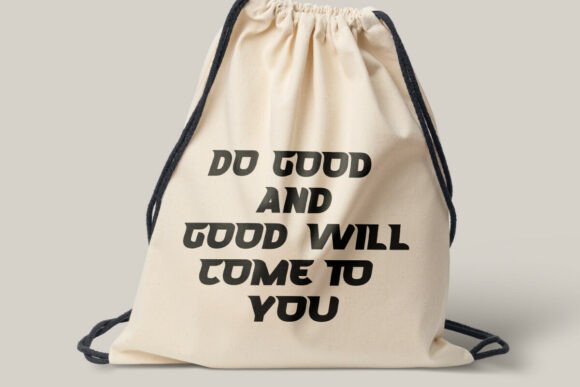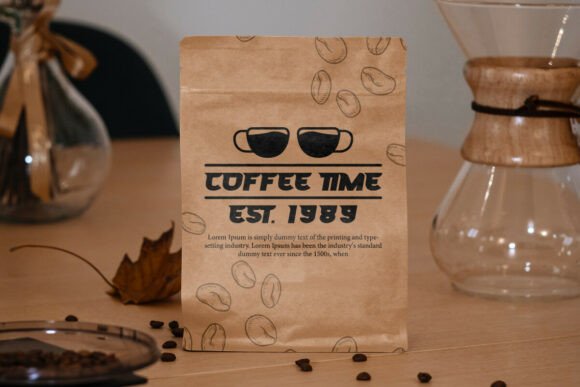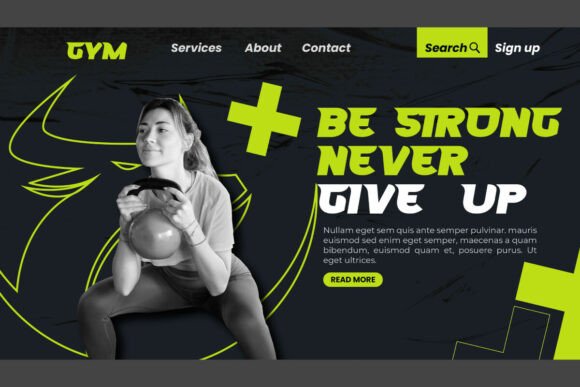
Introduction to Games Space Font
Games Space Font is a playful display font with a gaming theme.
It will be good for any designs, such as advertisement, brand image, cover, custom design, invitation, label, marketing material, poster, product packaging, quotes, stationery, signage, website page, and more .
Why Choose Games Space Font?
Games Space Font offers exceptional quality and versatility, making it a valuable addition to your design toolkit. Whether you’re creating for personal projects or commercial use, Games Space Font delivers professional results.